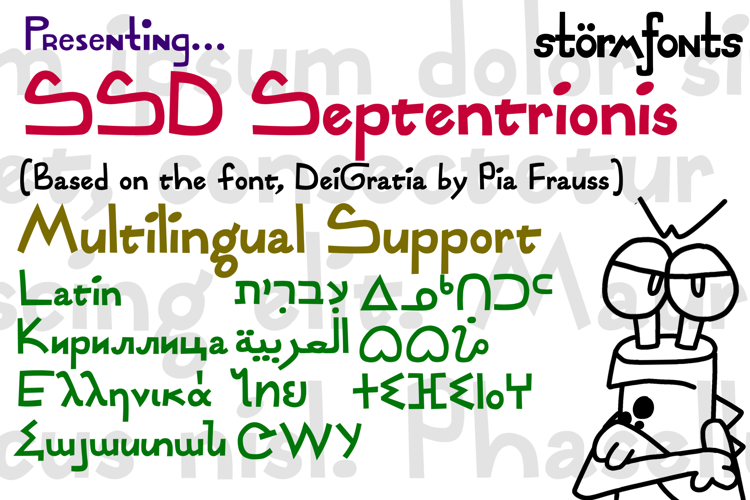
SSD Septentrionis Font
A comical font that supports various languages and writing scripts. (Latin, Greek, Cyrillic, Hebrew, Armenian, etc.)
Based on the font DeiGratia.
(by the way, "Septentrionis" means "North" in Latin)
(UPDATE From May 14th, 2026: Completed the basic IPA letters and Cherokee, Added more Coptic and Cyrillic, Added a handful of CJK ideographs and another handful of hangul syllables, and more kerning pairs)